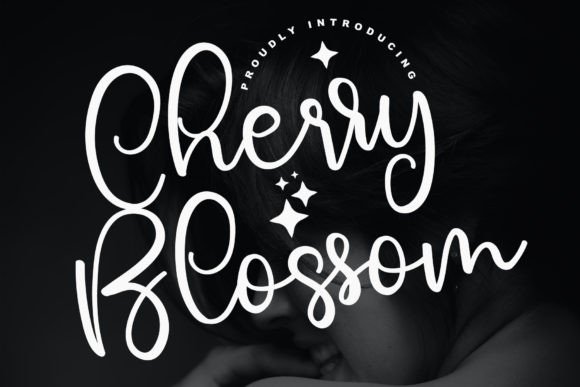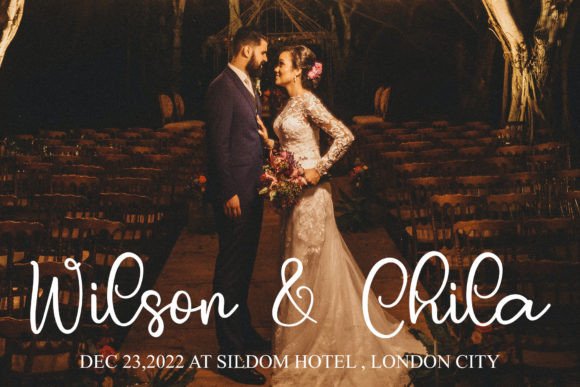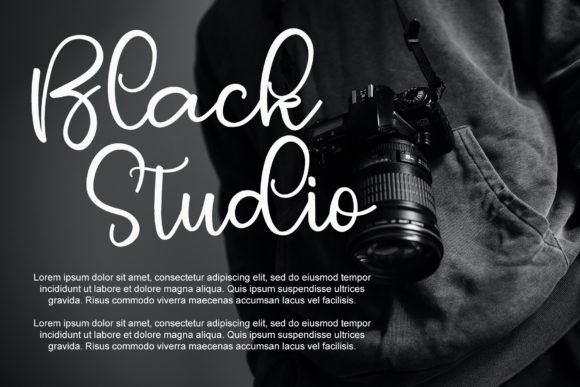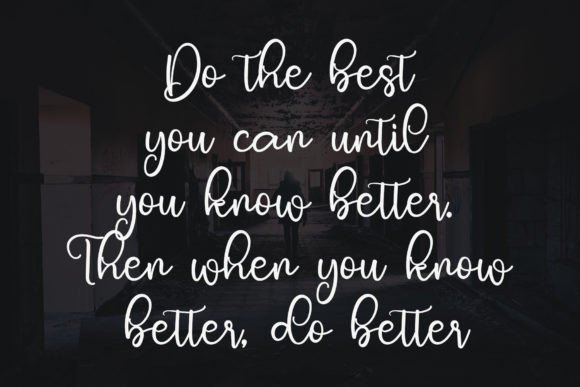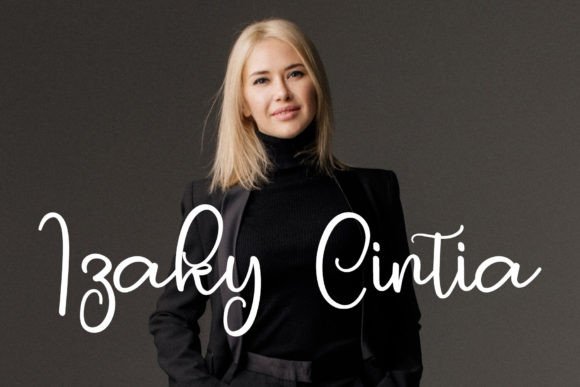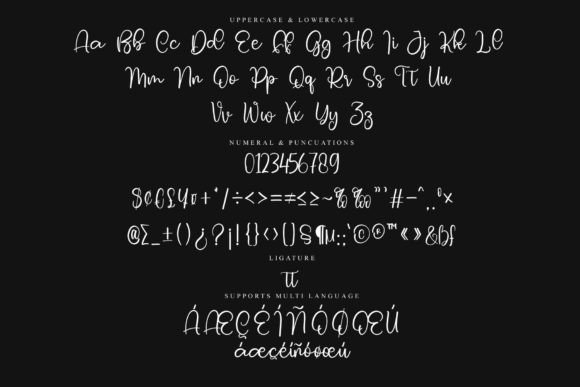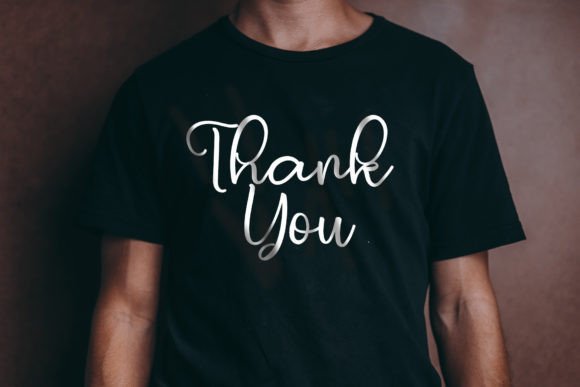
Cherry Blossom Font
Add Charm with Cherry Blossom Font
Cherry Blossom Font is a beautifully crafted handwritten script that blends whimsy with elegance. Created with care, this font is perfect for bringing a graceful, magical touch to your projects. Whether you’re designing digital graphics or crafting something by hand, this font helps every design feel personal and refined.
Designed for Elegance and Versatility
Cherry Blossom Font is ideal for creators who want to add a soft, handwritten feel to their work. It’s especially useful for:
• Instagram Graphics – Stand out on social media with stylish, modern calligraphy.
• DIY Projects – Add warmth and elegance to your cards, crafts, and handmade goods.
• Wedding and Event Invitations – Make every occasion feel extra special.
• Quotes and Posters – Elevate words with a font that speaks from the heart.
• Branding and Packaging – Create a unique identity with a personal flair.
This font’s charming character works beautifully for both print and digital formats.
The strokes are fluid yet balanced, making it readable while still maintaining its artistic flair. Whether used for long quotes or short labels, it retains its charm and legibility.